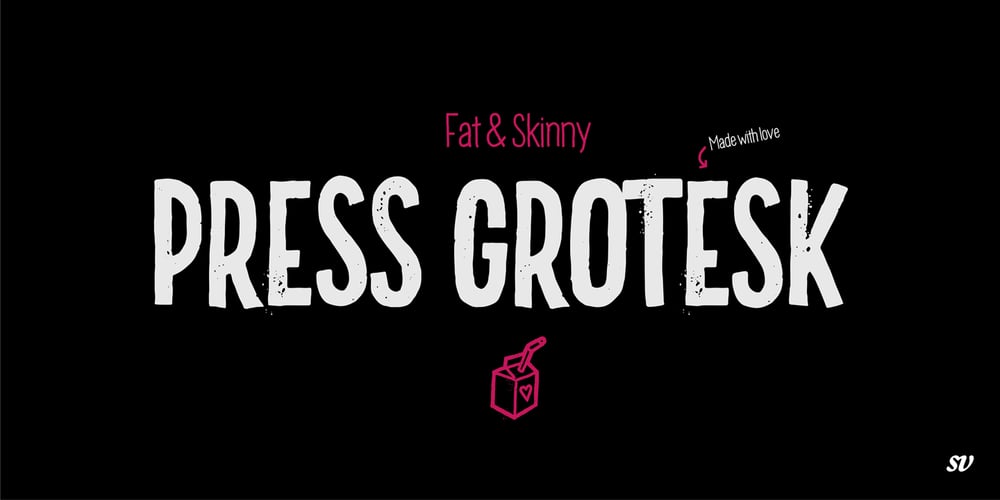
Press Grotesk
Press Grotesk font
Press Grotesk Font Family was designed by Philip C. Waschmann and published by Studio Vachement. Press Grotesk contains 3 styles and family package options. Press Grotesk is a handmade sans serif, condensed font that takes inspiration from old letterpress printing processes & handcrafting. The font’s slightly imperfect, uneven appearance works perfectly for surfing, skating, motorcycling, coffee shops, health, wellness, adventure brands, and much more.Press Grotesk features 2 weights (fat and skinny), upper- and lowercase, many advanced characters and illustrations in order to achieve a truly hand painted look.